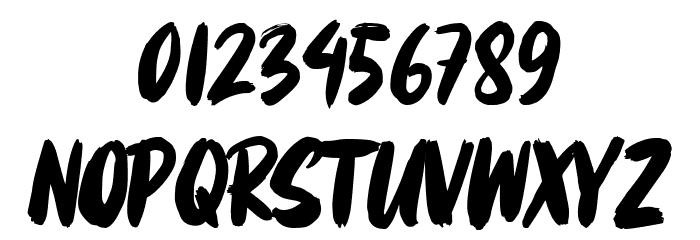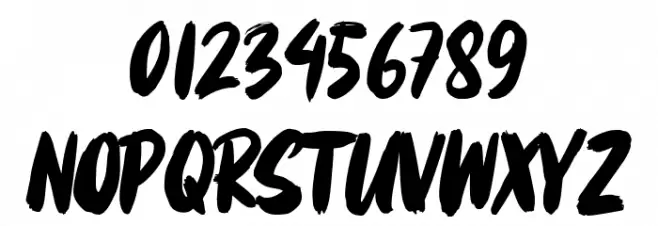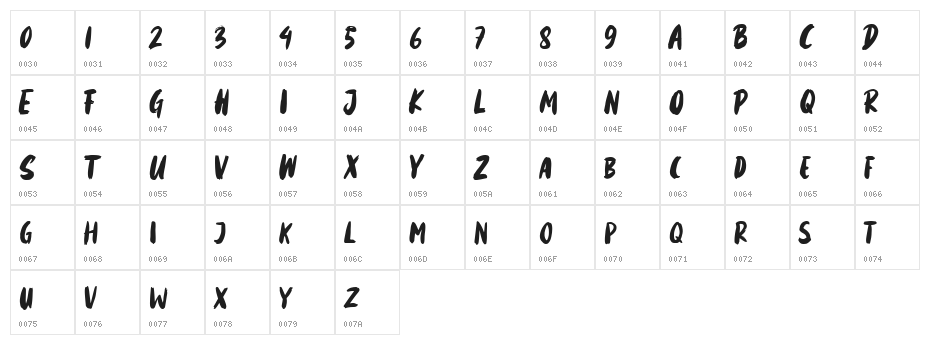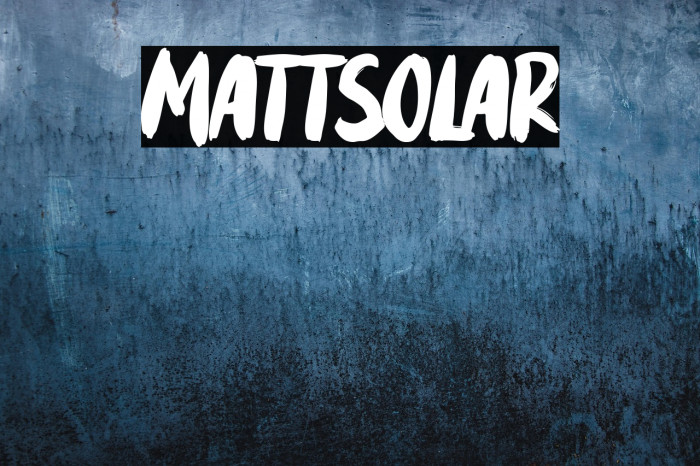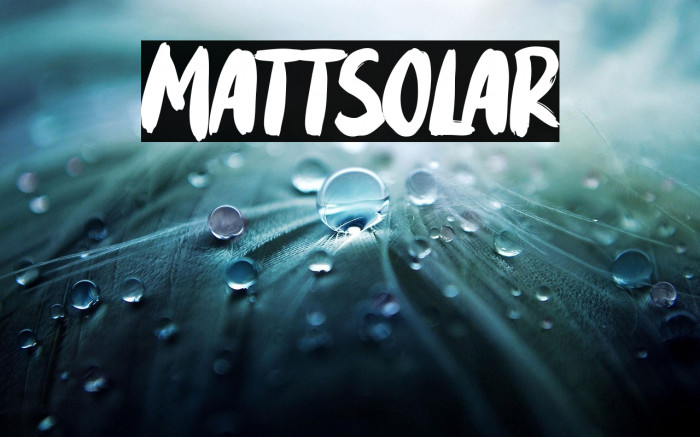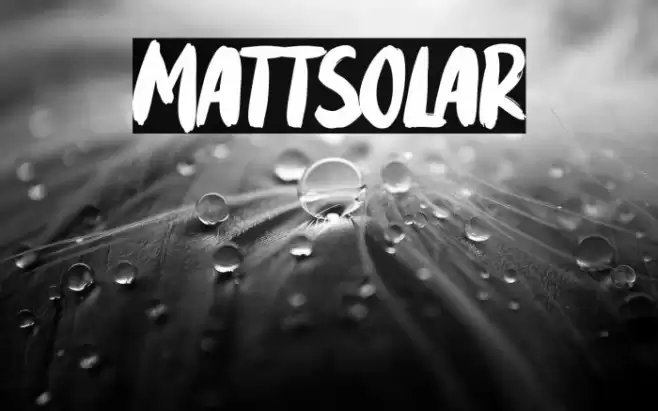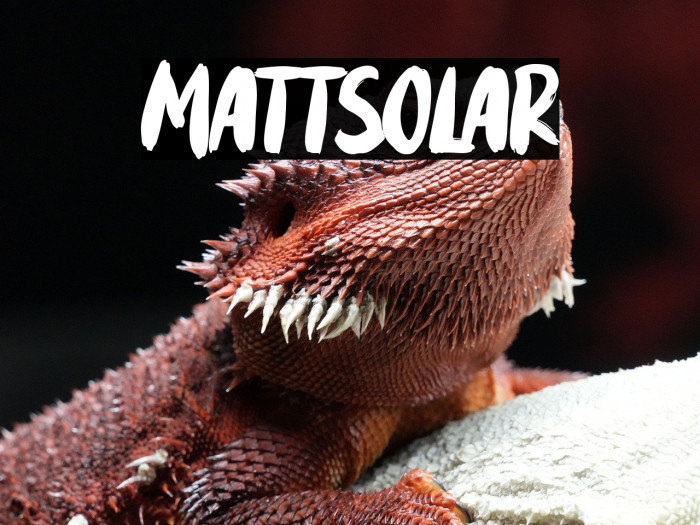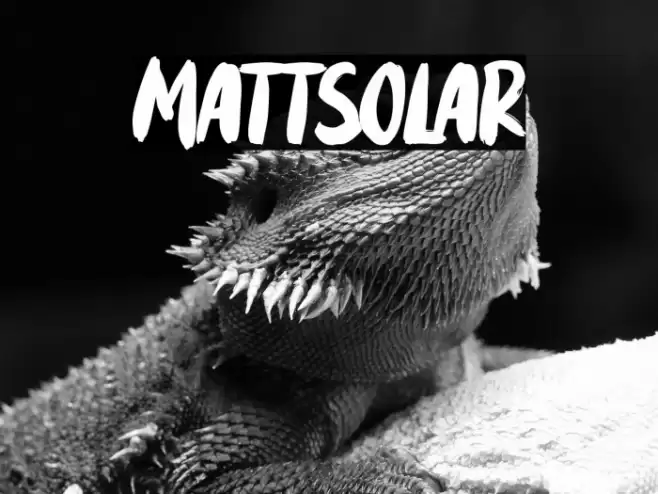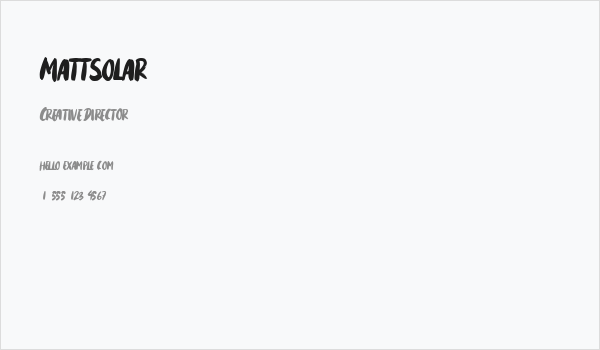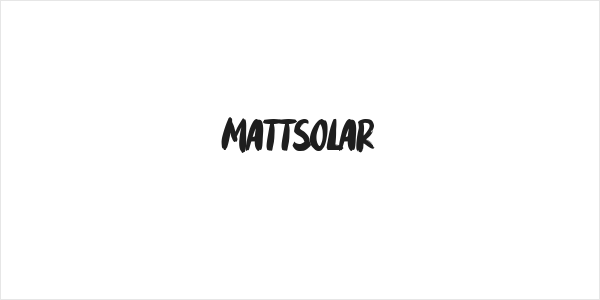
Mattsolar Font
Mattsolar Description
This font features a bold and expressive handwritten style, characterized by its thick, brush-like strokes that convey a sense of energy and dynamism. The letters are slightly slanted, adding to the casual and informal feel of the typeface. The uppercase and lowercase letters maintain a consistent style, with rounded edges and varying stroke widths that give it a lively appearance. The numbers and special characters follow the same design principles, ensuring a cohesive look across all elements. This font is ideal for projects that require a personal touch or a creative flair.
| Proposed Projects | Ideal for branding, posters, social media graphics, and creative projects that require a personal touch. |